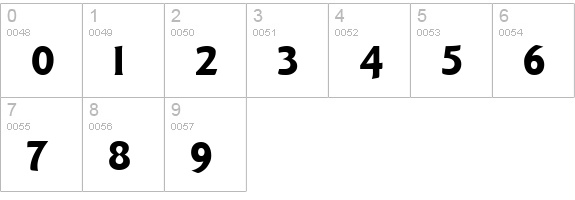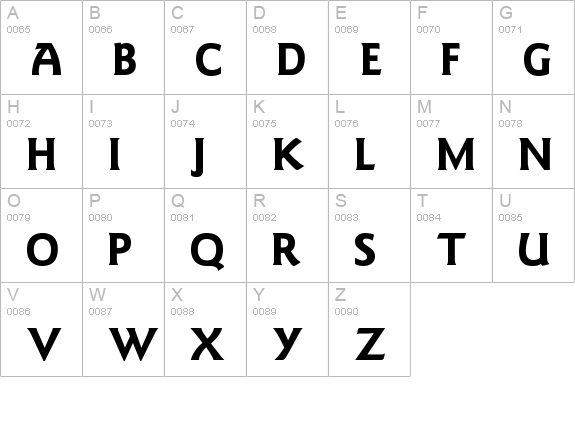
Goudy Bold Font Details
Goudy Bold is a strong, high-contrast variant in the Goudy typeface family \xE2\x80\x94 well suited to headlines, attention-grabbing titles, and strong calls-to-action.
Goudy Bold is a timeless and elegant font that exudes sophistication and class. Its strong and bold letterforms make it perfect for creating eye-catching headlines and titles. The serif style adds a touch of traditional charm, while the overall design remains modern and versatile. What sets Goudy Bold apart is its ability to command attention while maintaining a sense of refinement. Whether used for print or digital projects, this font makes a bold statement that is sure to leave a lasting impression on your audience. The best part? Goudy Bold is available for free download at FontsMarket.com. Now you can elevate your designs with this exceptional font without breaking the bank. Don't miss out on the opportunity to add Goudy Bold to your font collection today!